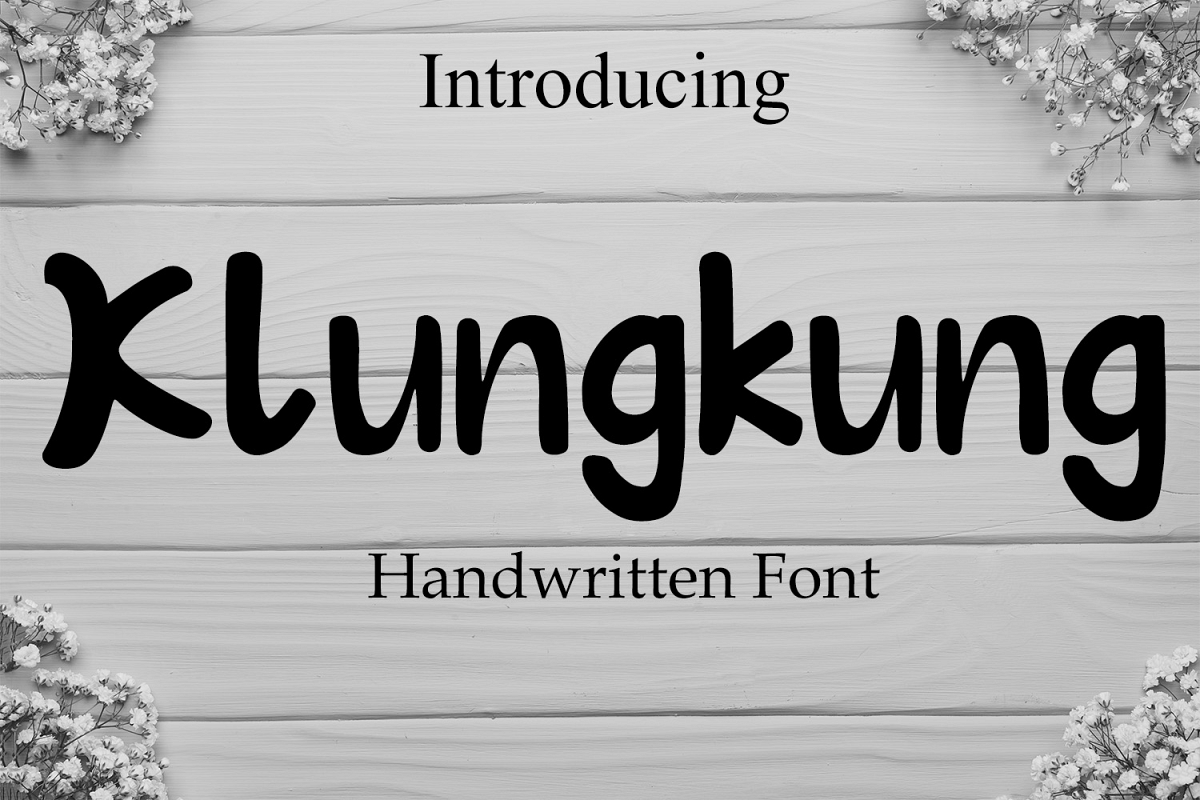
Klungkung
The Klungkung is a classic display font. It was inspired by nature and is perfect for logos, magazines, and every other design which needs a striking typeface.